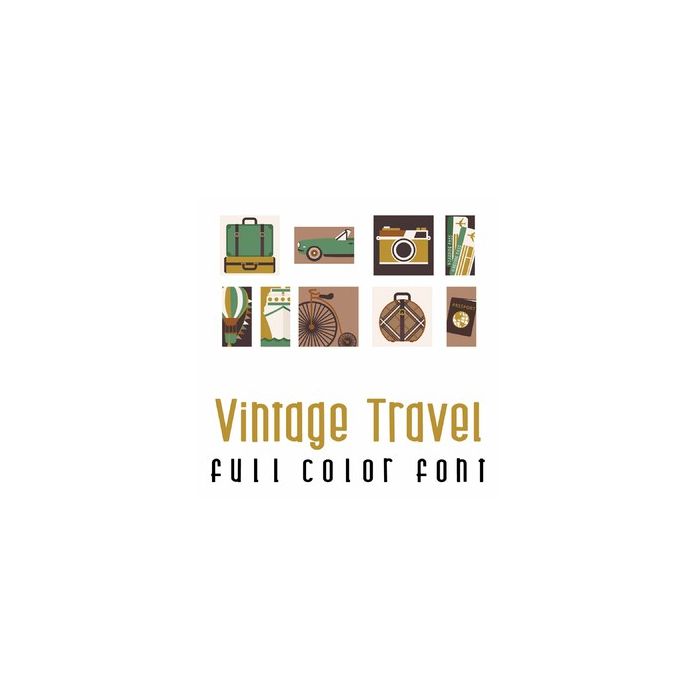
This adorable full-color doodlebat font features 26 beautiful vintage vacation images. Perfect for cards, crafts, gifts, decor, scrapbook pages, planner stickers, and more!